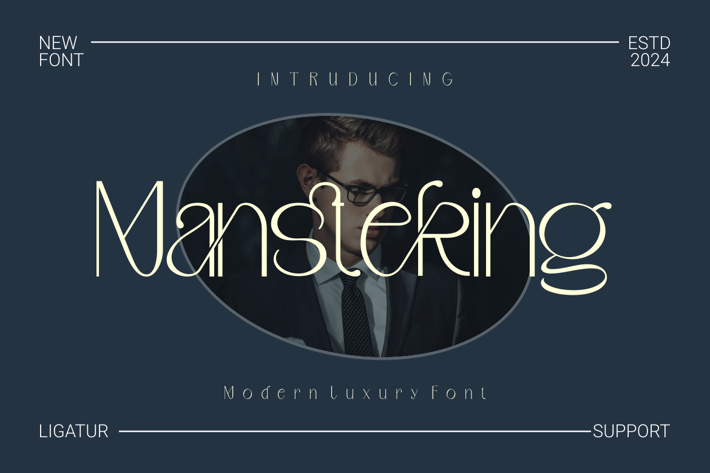
Mansteking - Modern Luxury Font
Introducing our new product Mansteking - Modern Luxury Font Modern Font
Mansteking - Modern Luxury Font - Modern Font is a bold and authentic display font. The font is suitable for any branding project like logo, t-shirt printing, esport, and many more. outstanding in a wide range of contexts.